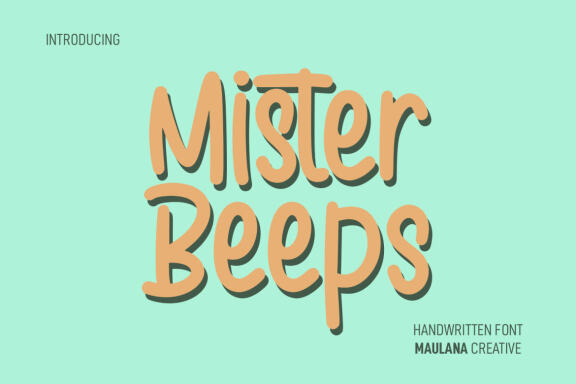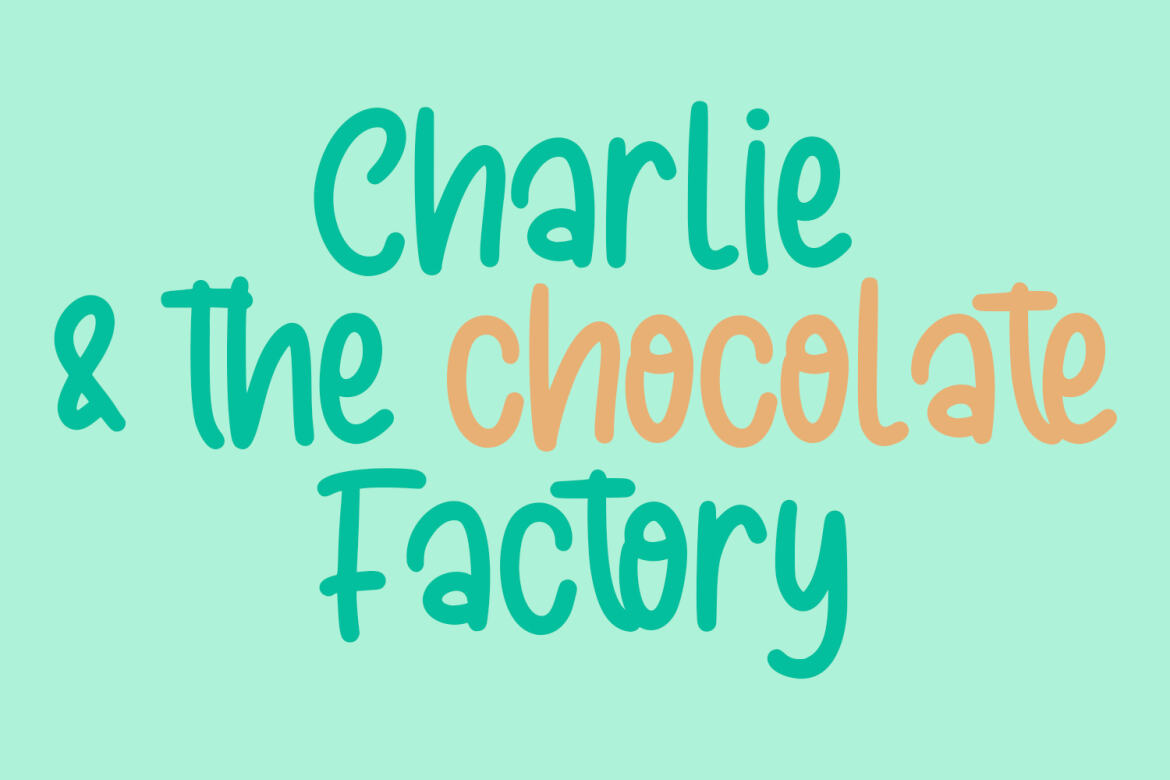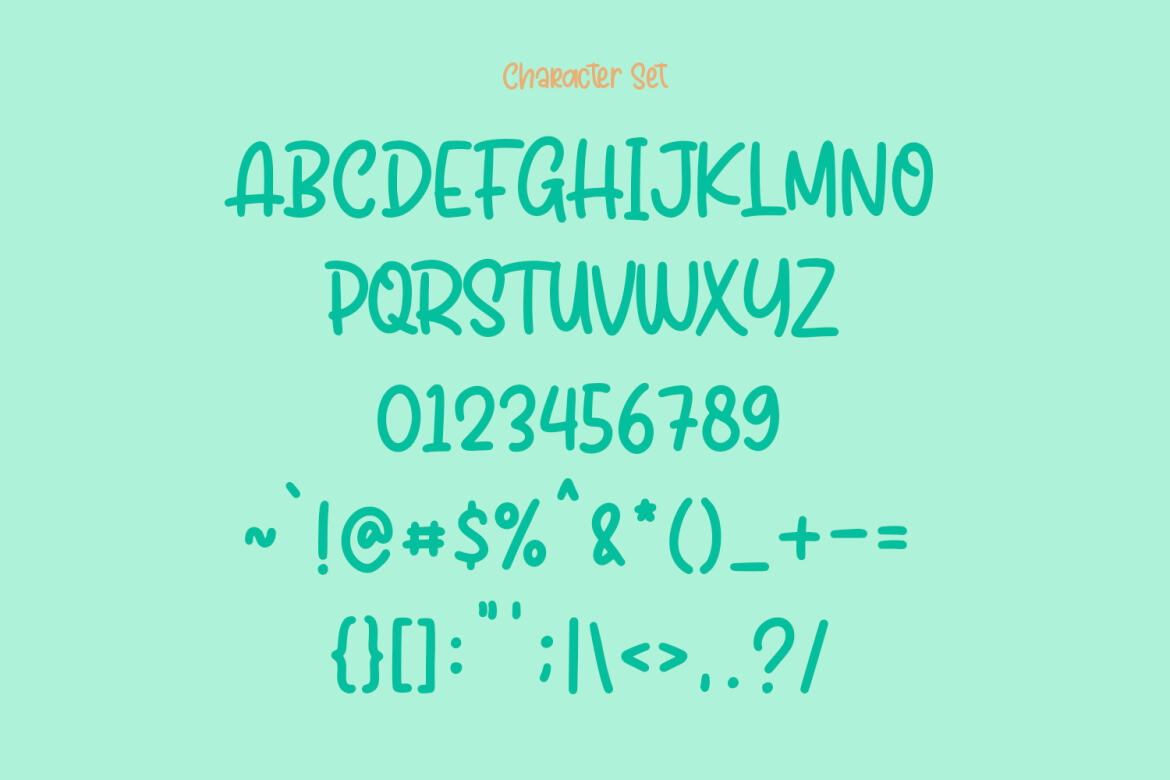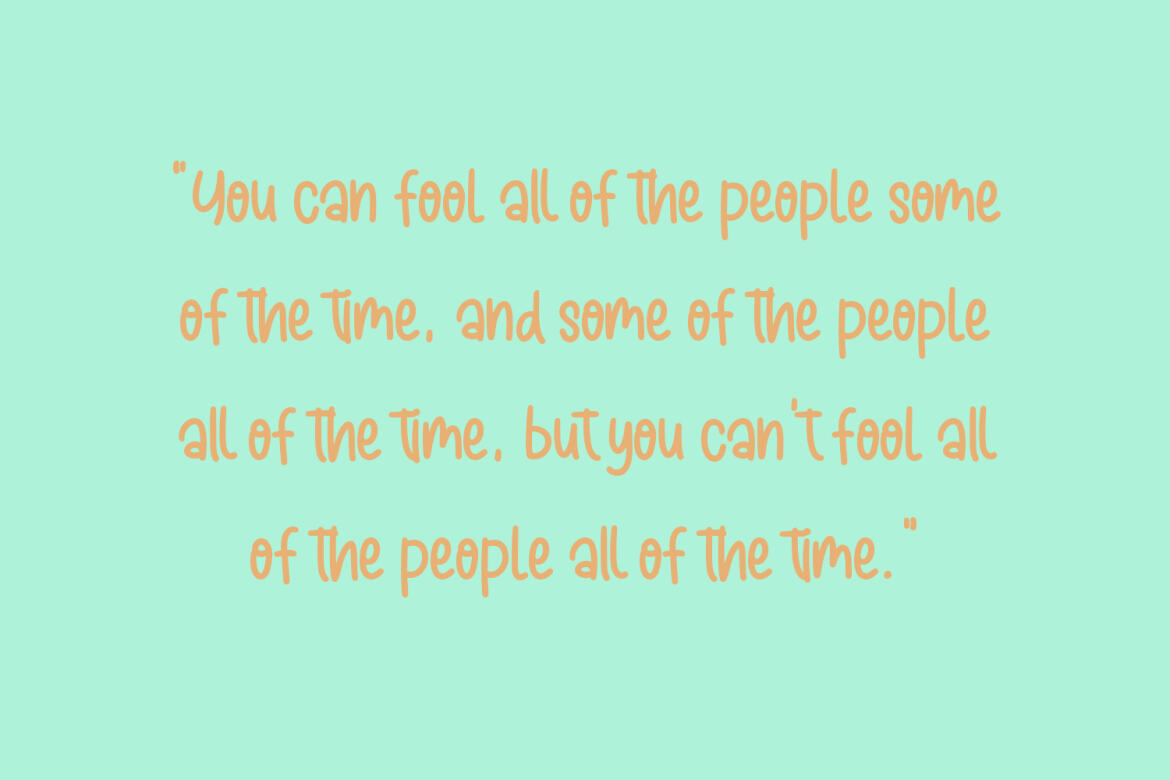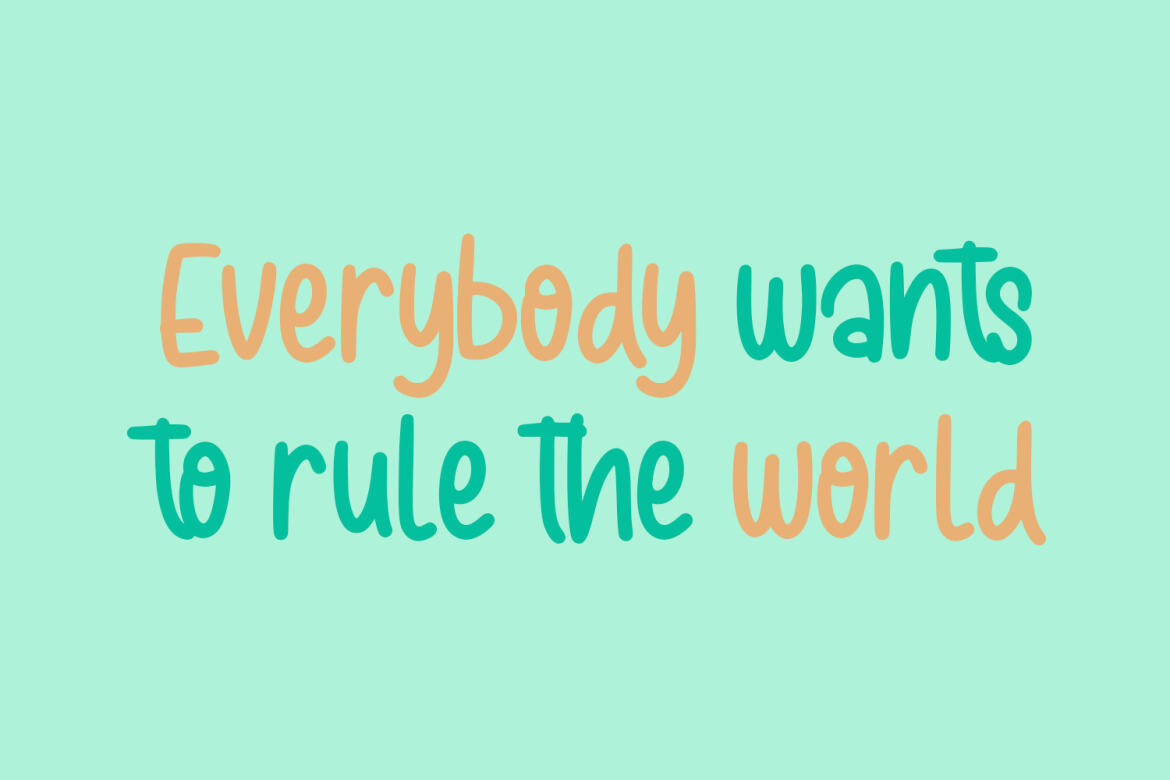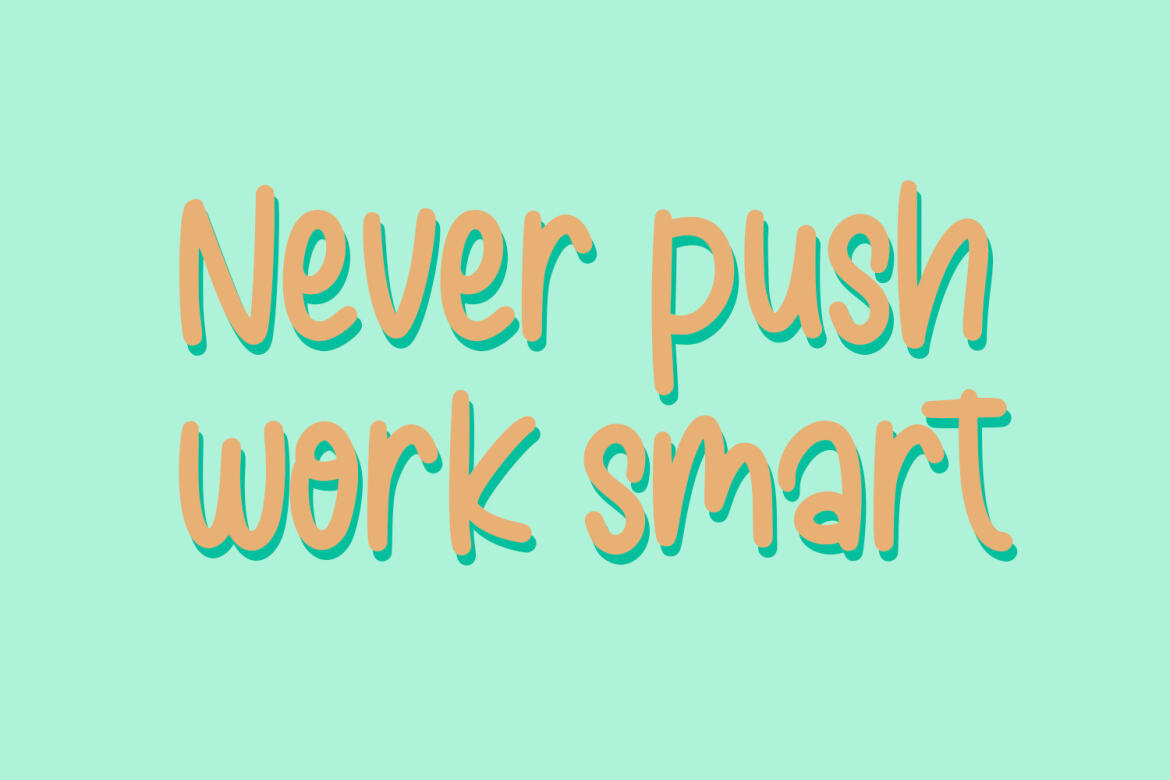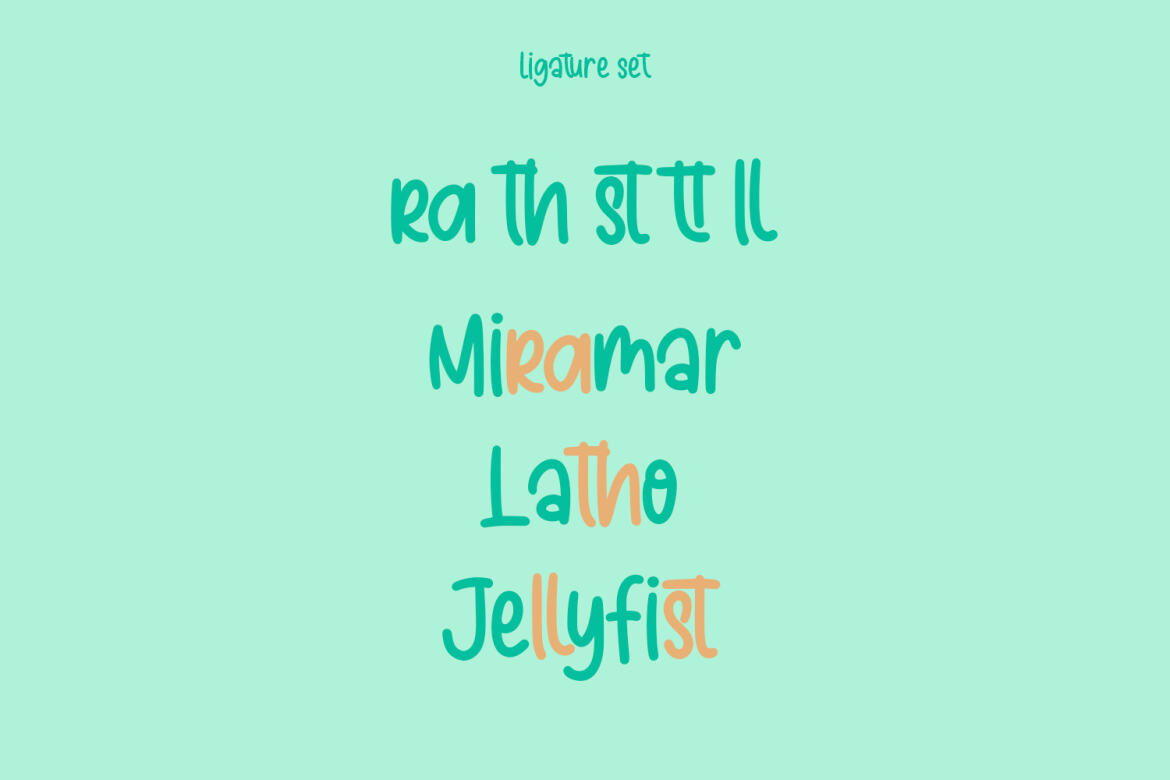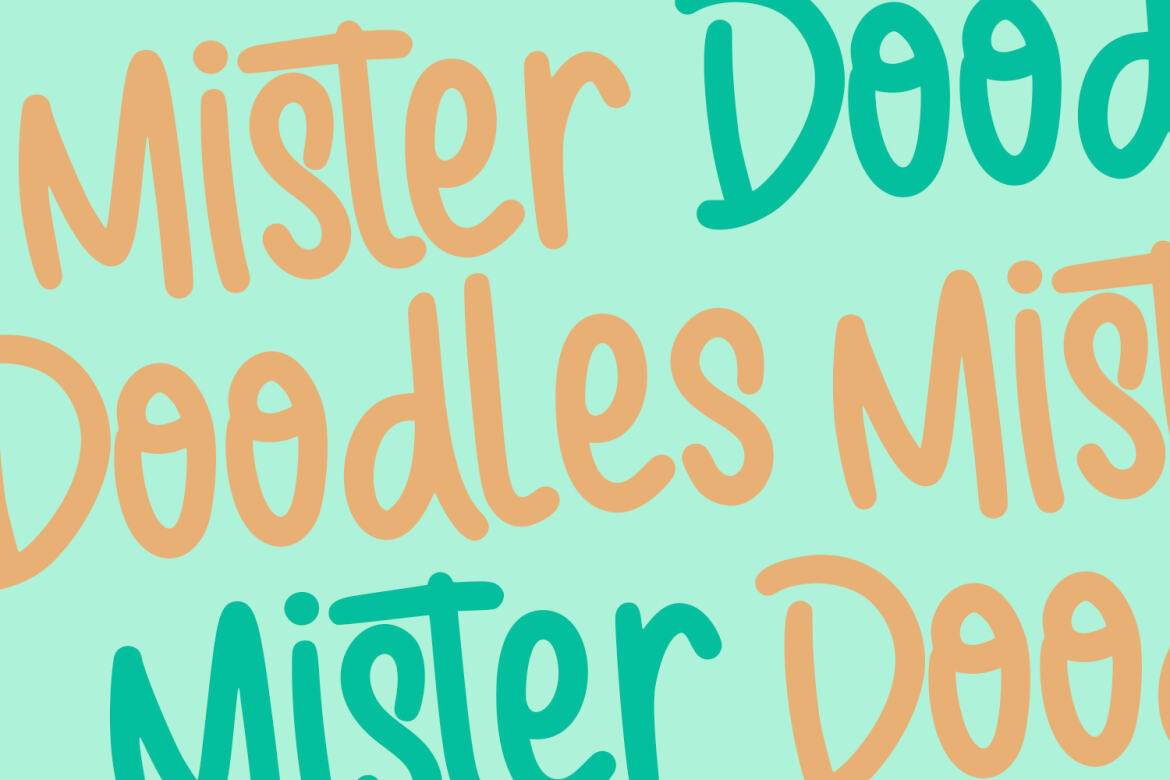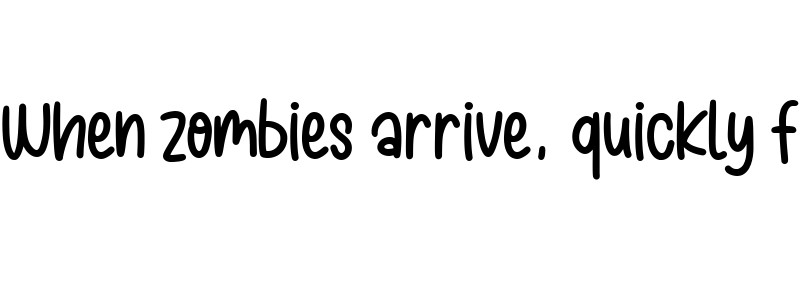
Mister Beeps FREE Handwritten Font
Mister Beeps
Mister Beeps is a casual modern handwritten script font. With upright consist mono-line stroke, fun character. To give you an extra creative work. Mister Beeps font support multilingual more than 100+ language. This font is good for logo design, Social media, Movie Titles, Books Titles, a short text even a long text letter and good for your secondary text font with sans or serif. Make a stunning work with Mister Beeps font.